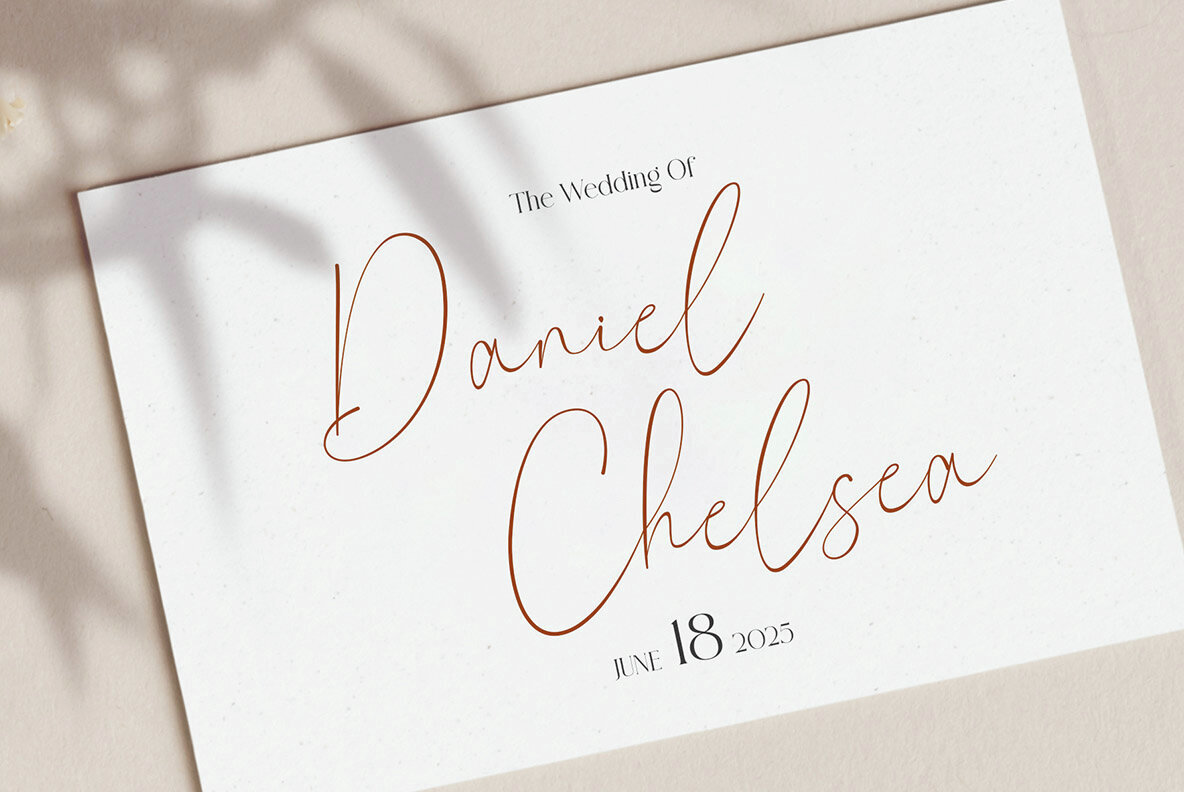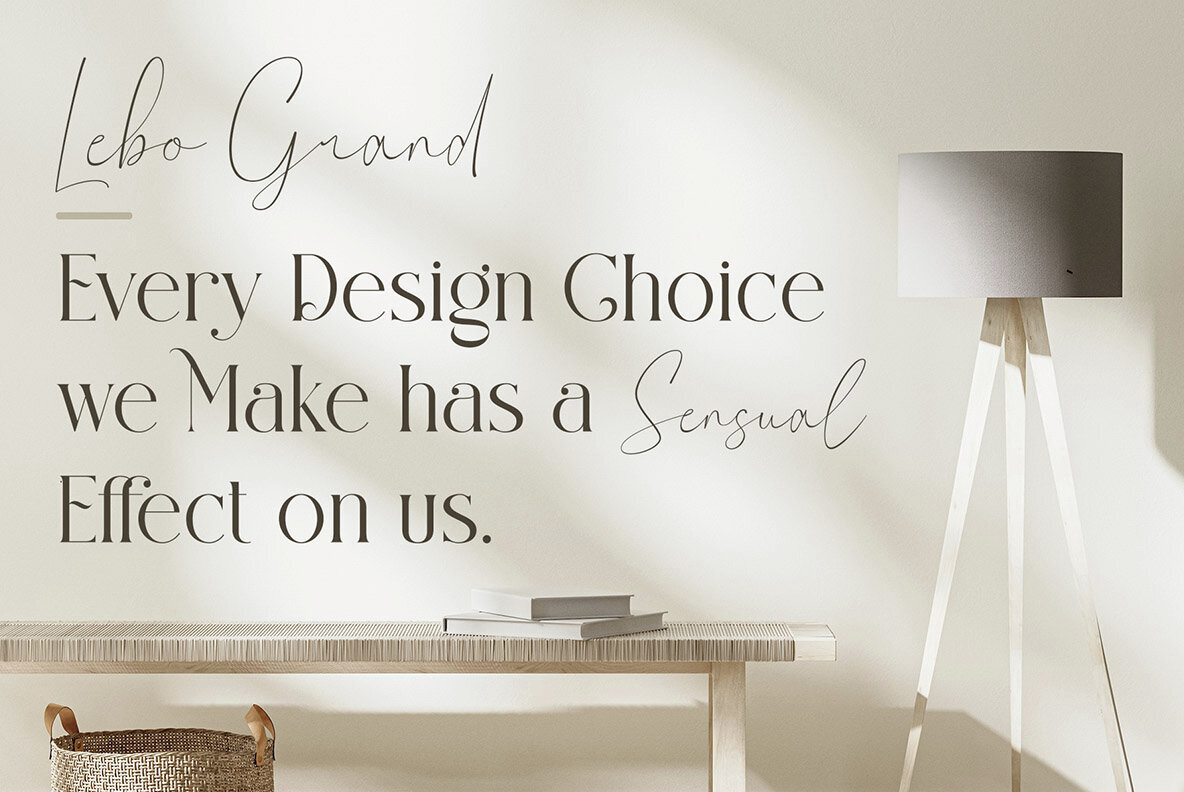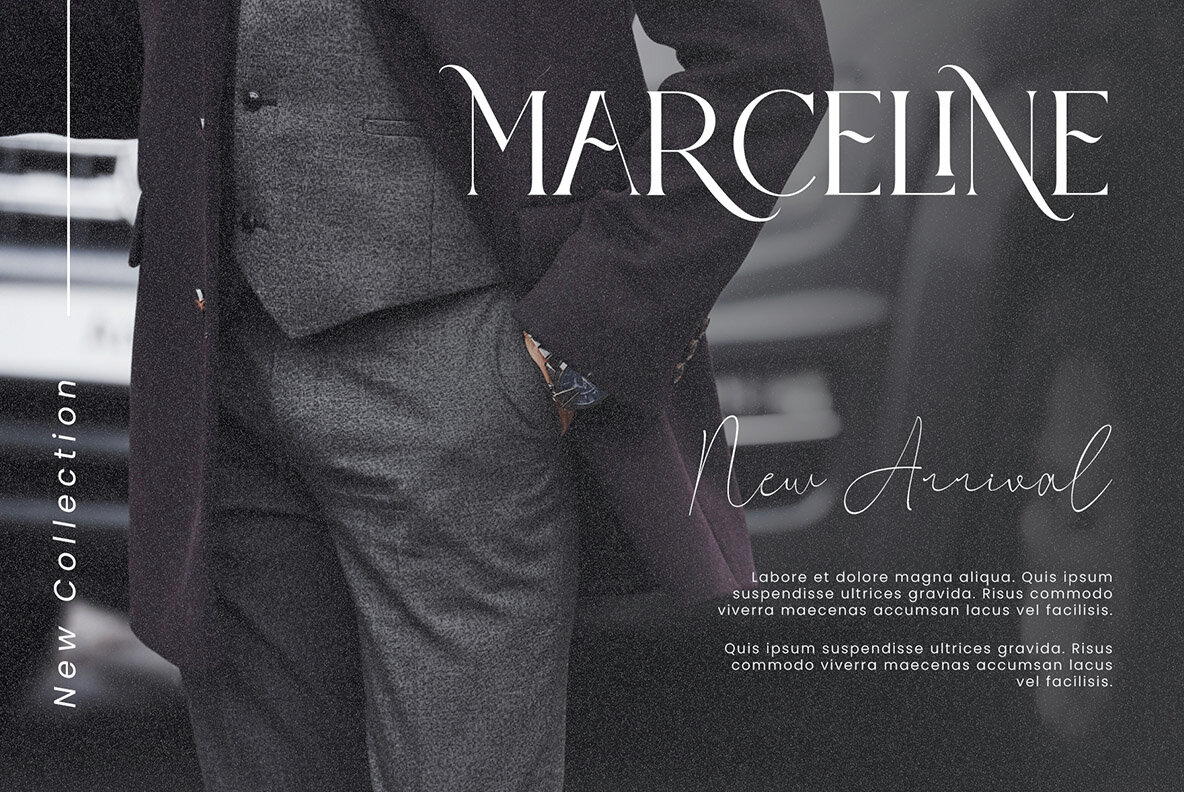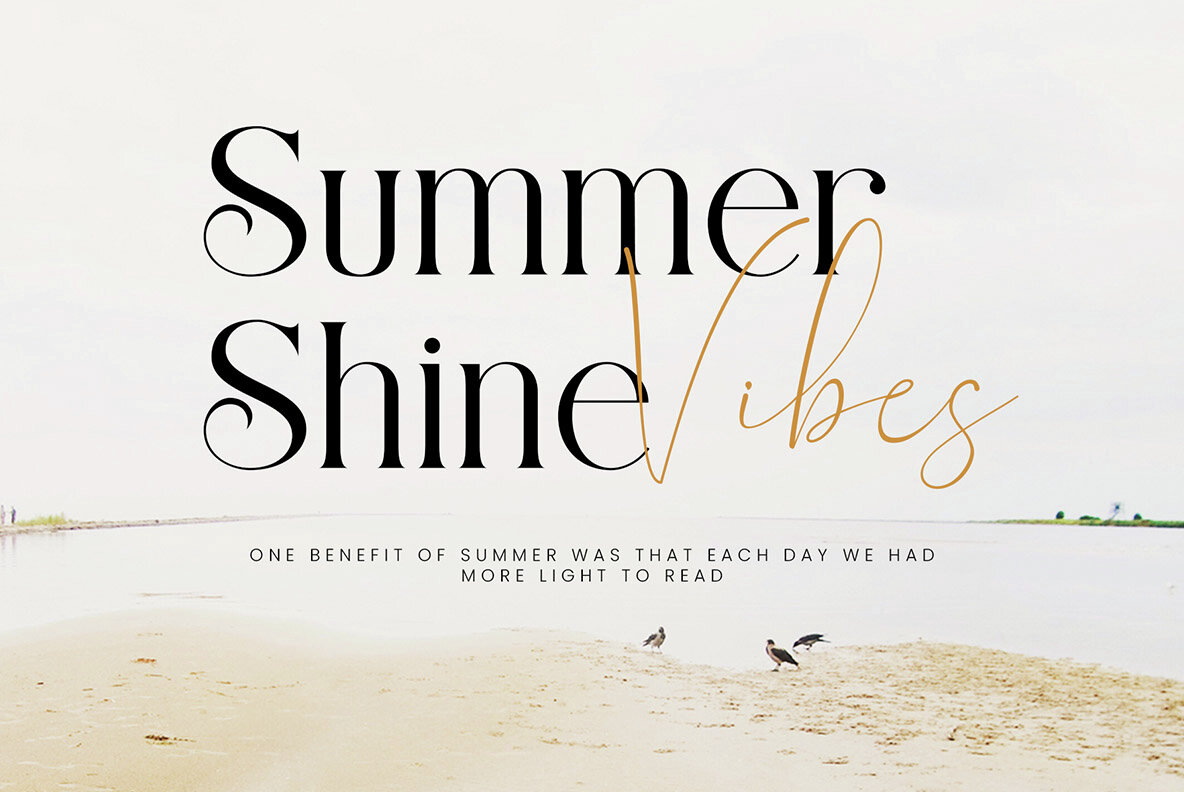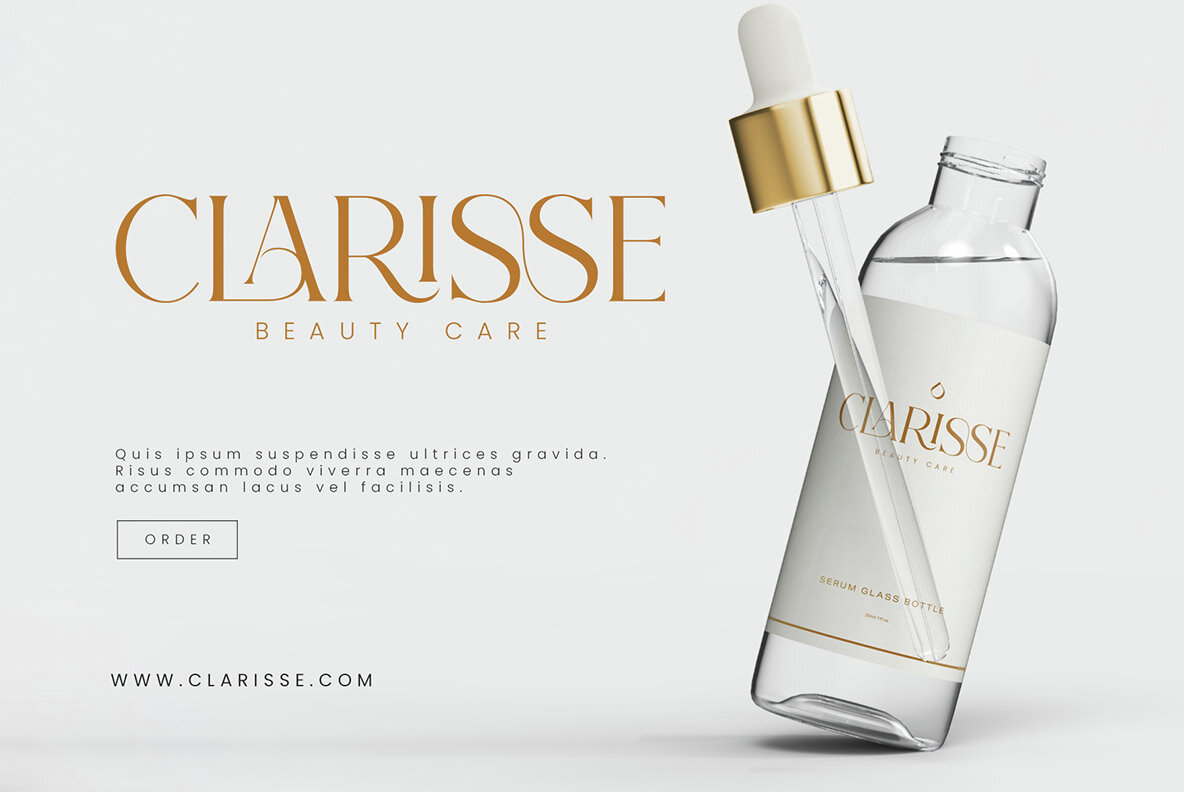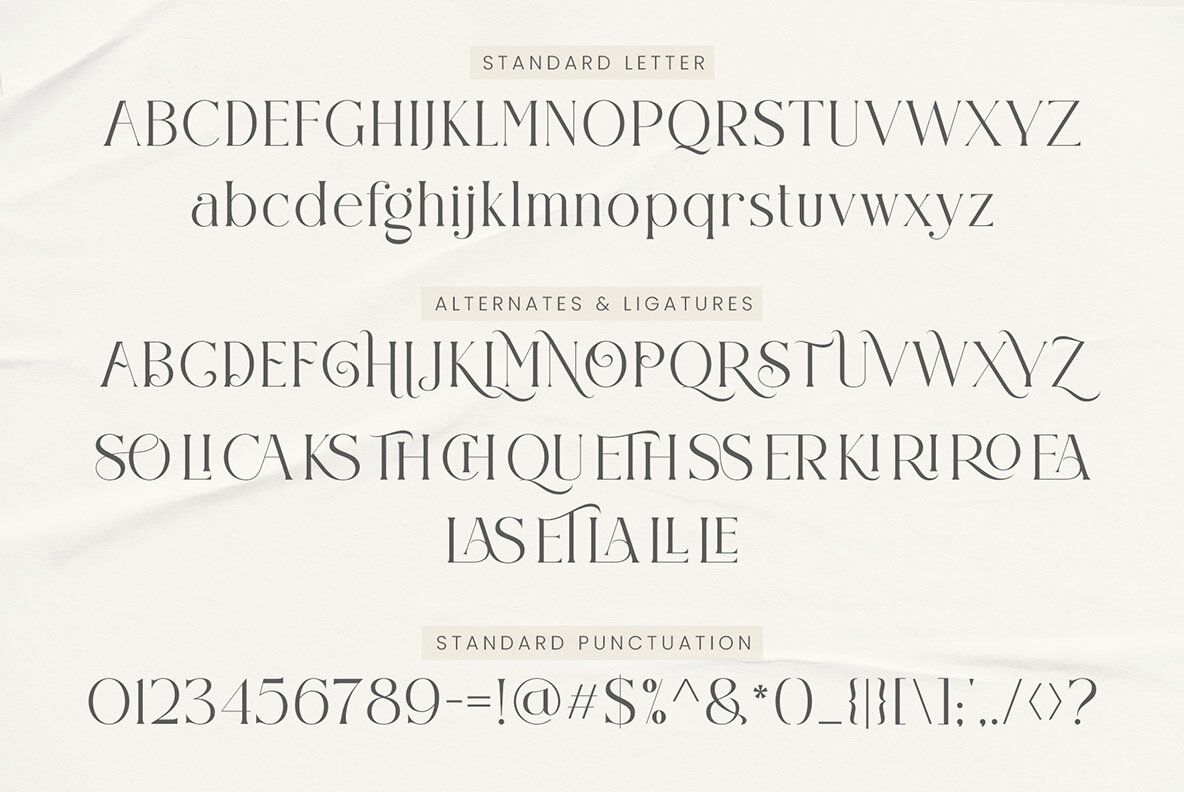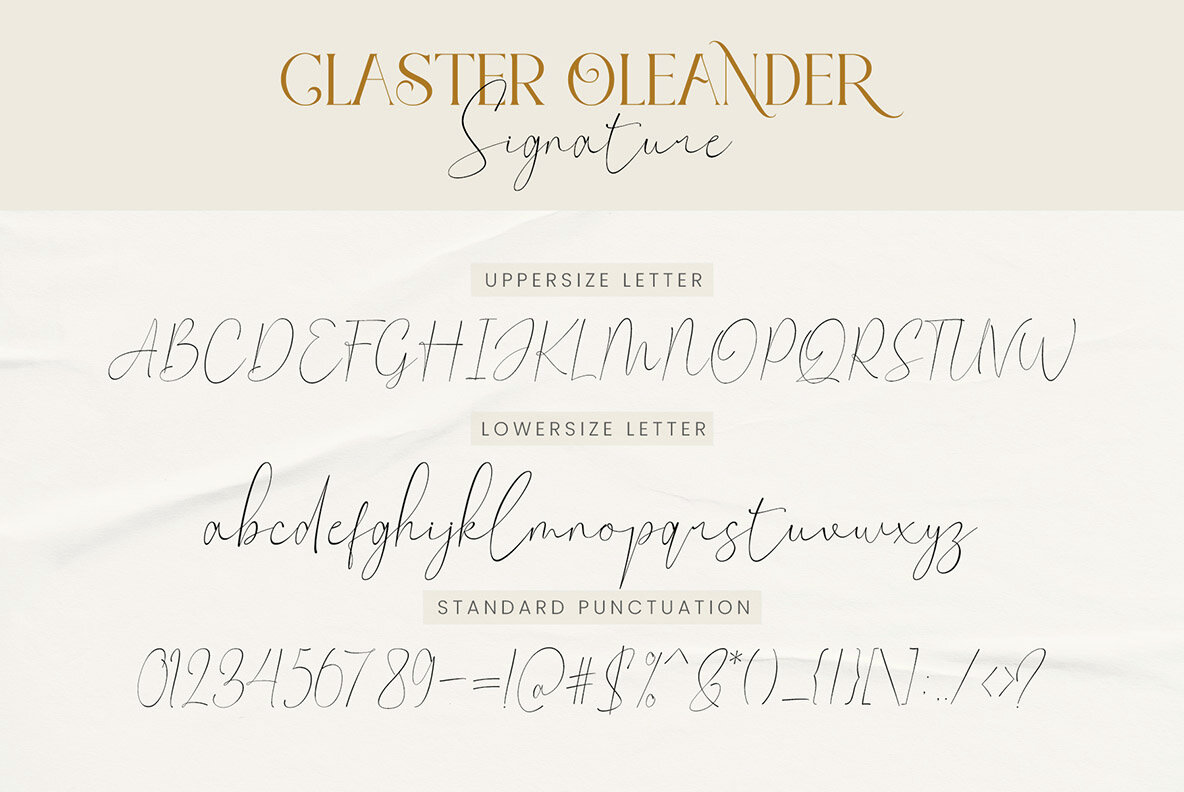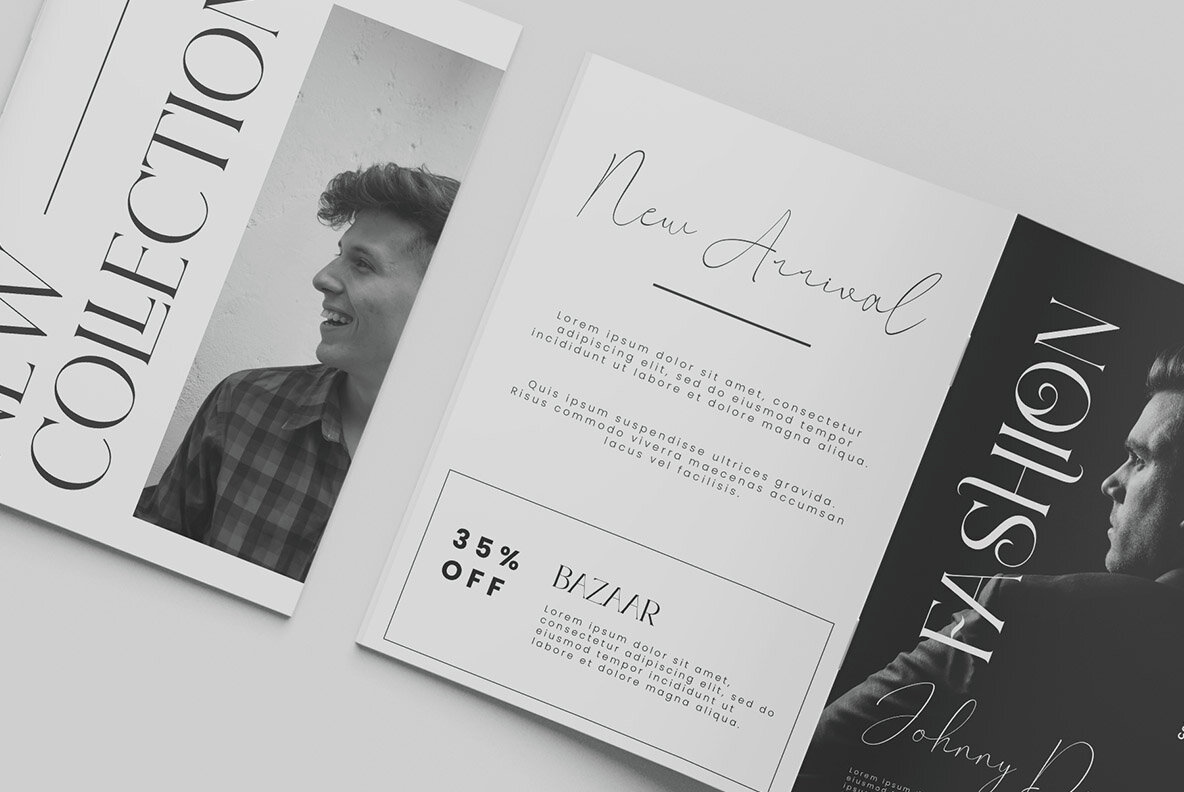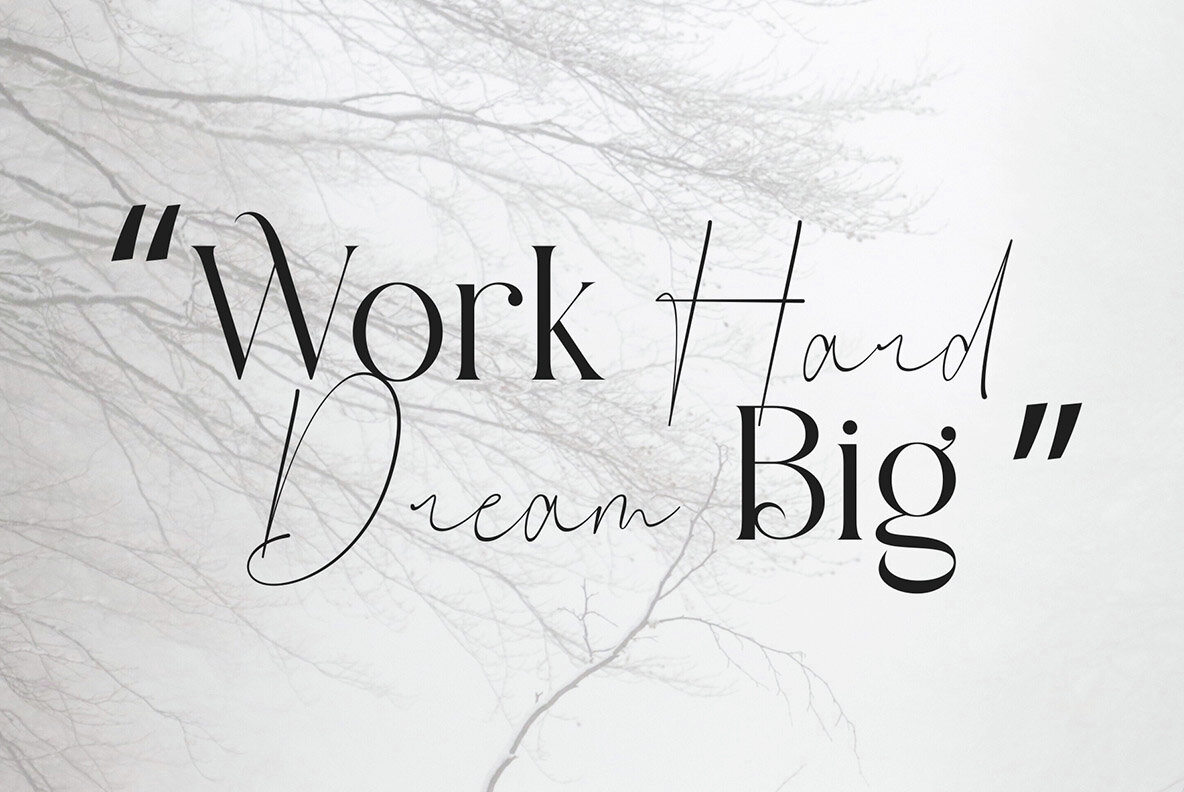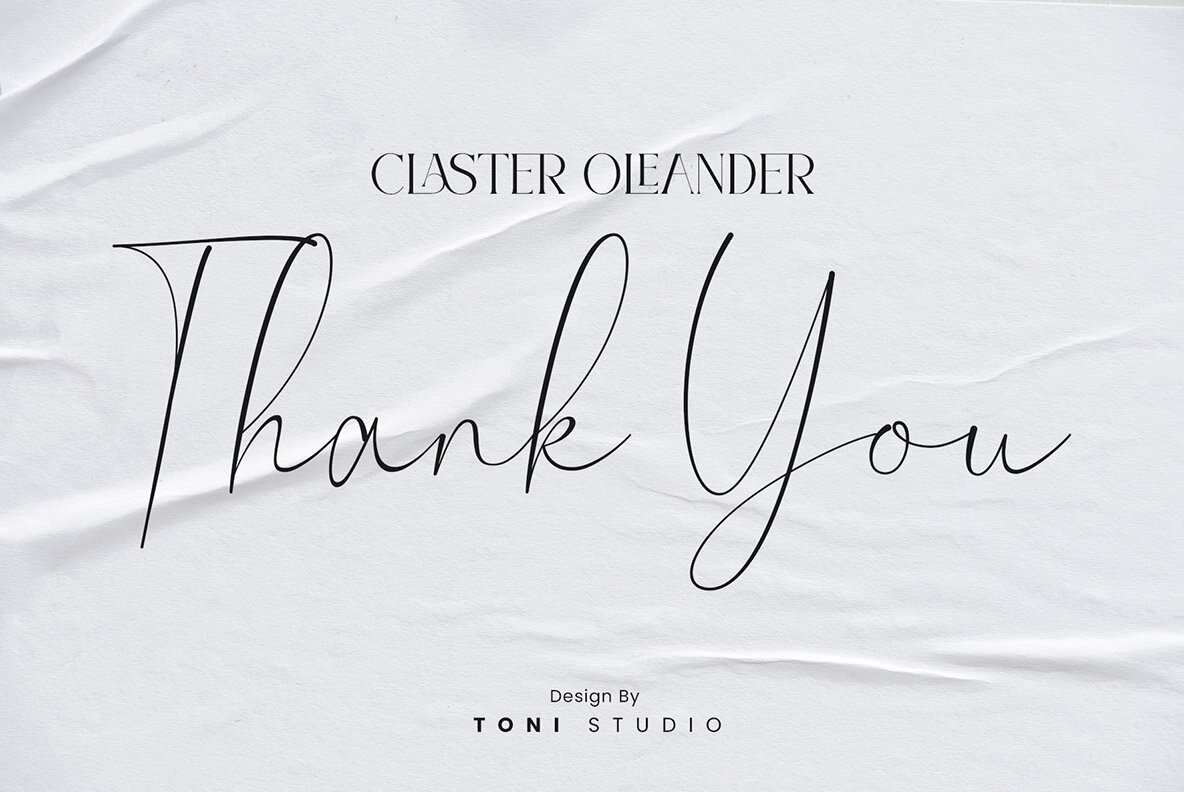
Claster Oleander Font
The Claster Oleander Font Duo combines a classic serif typeface with a modern handwritten script. This pairing creates a sophisticated and luxurious aesthetic that enhances any project. Perfect for use in websites, modern logos, brand identities, social media quotes, and wedding stationery, Claster Oleander ensures a polished and elegant result.Claster Oleander: A Perfect Typeface Pairing of Serif and Script